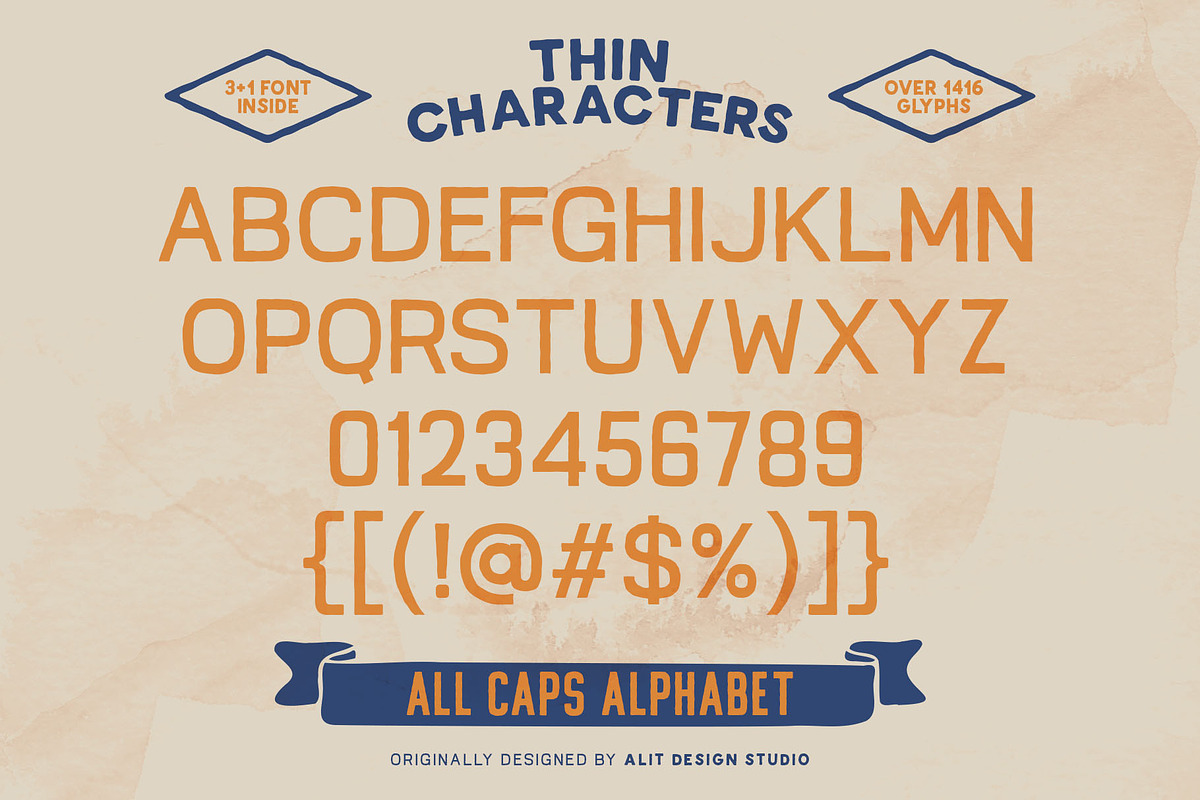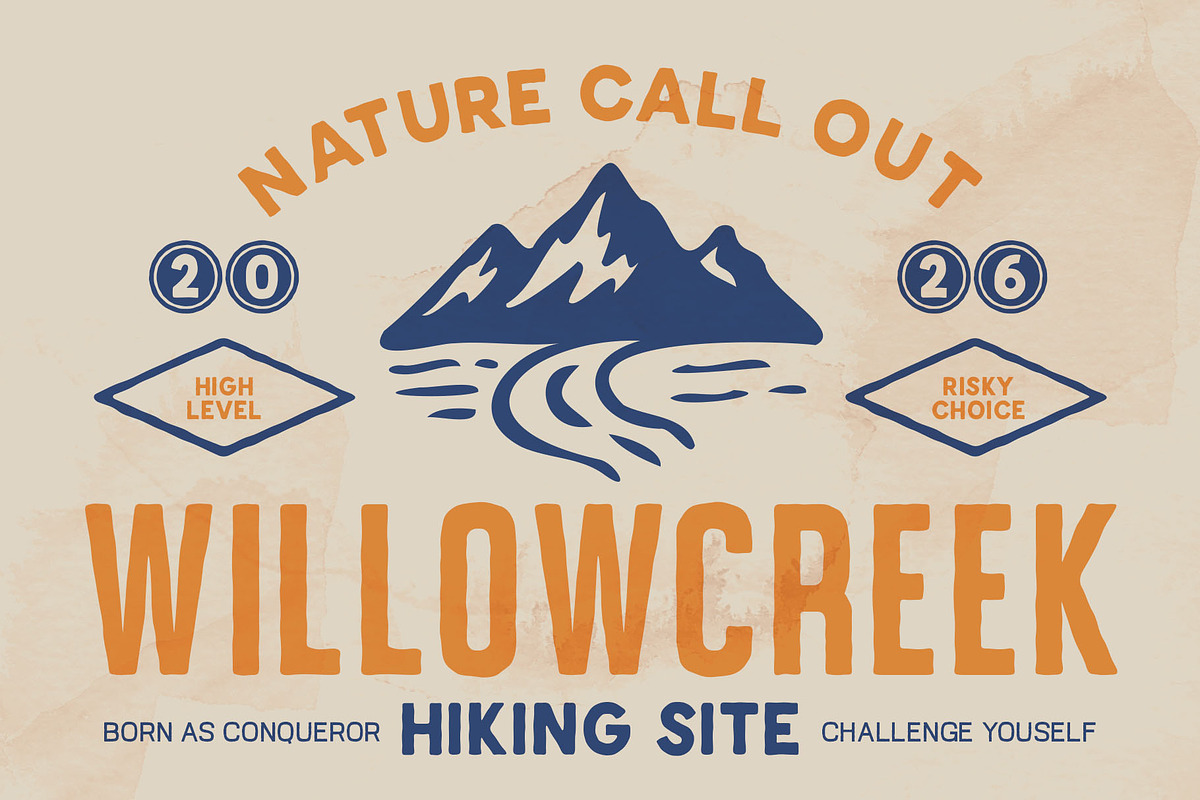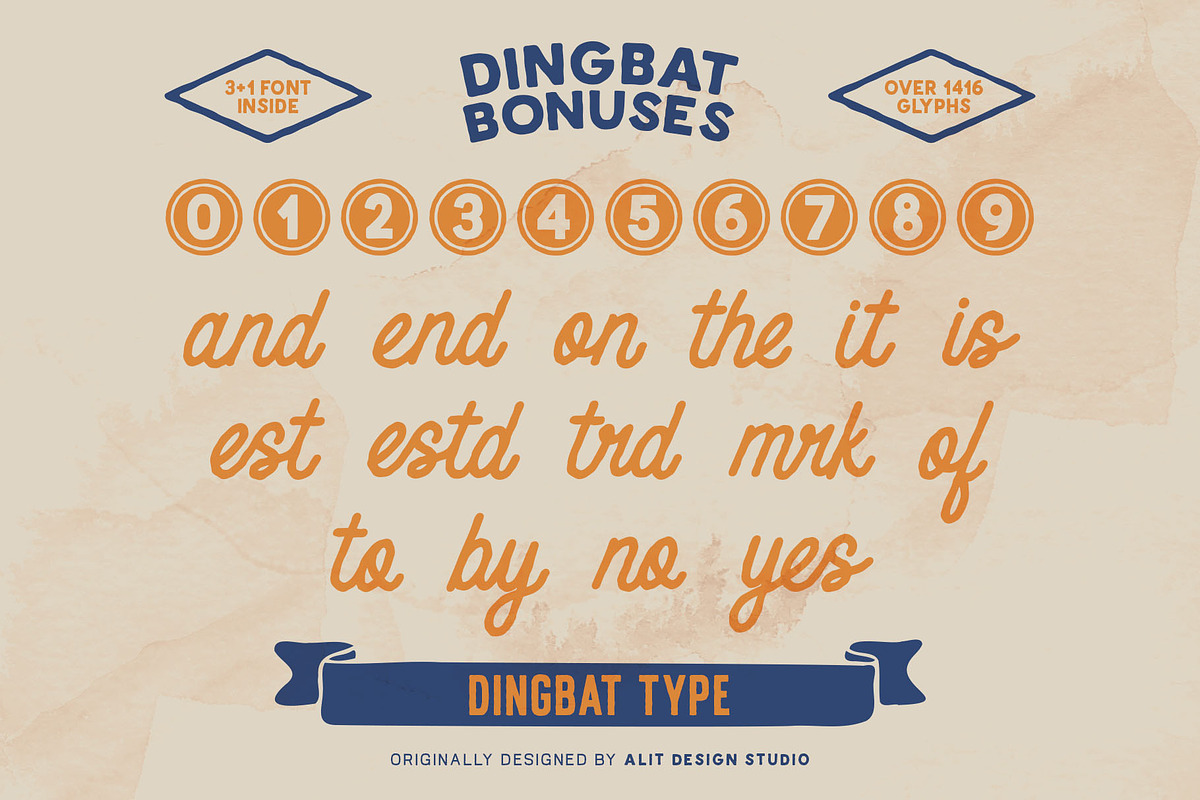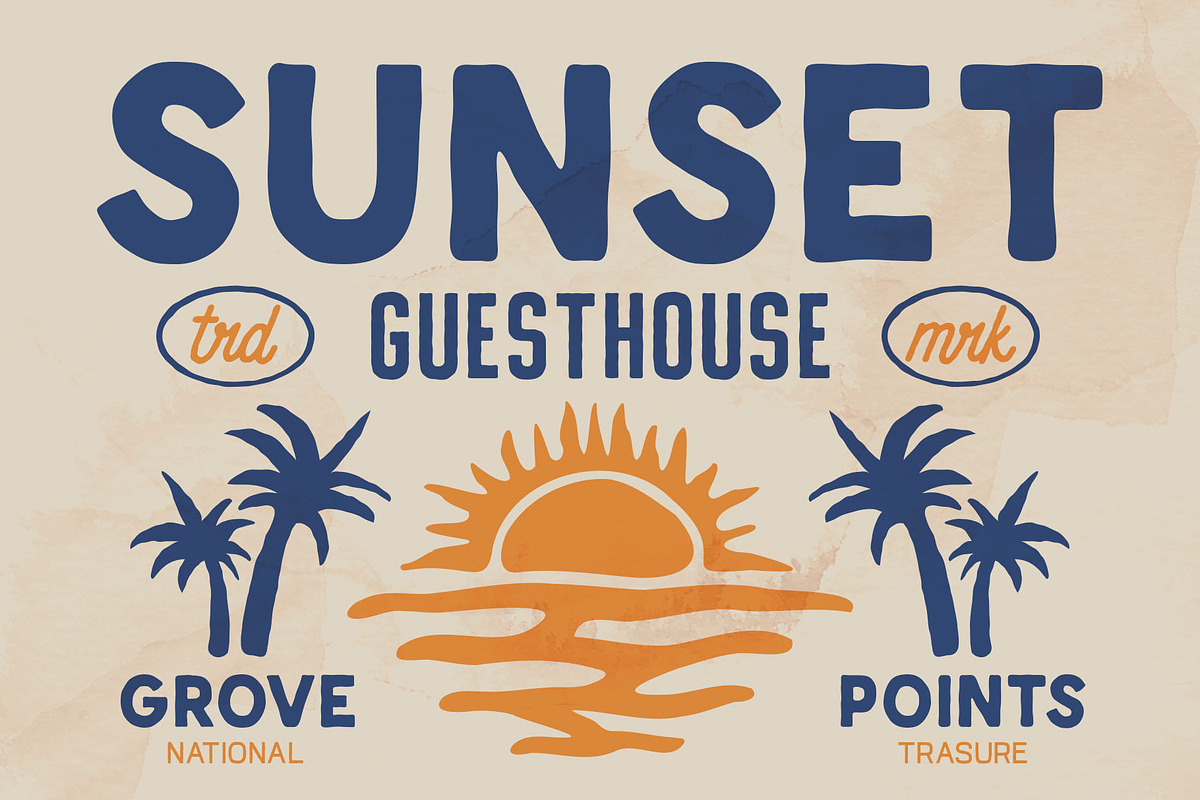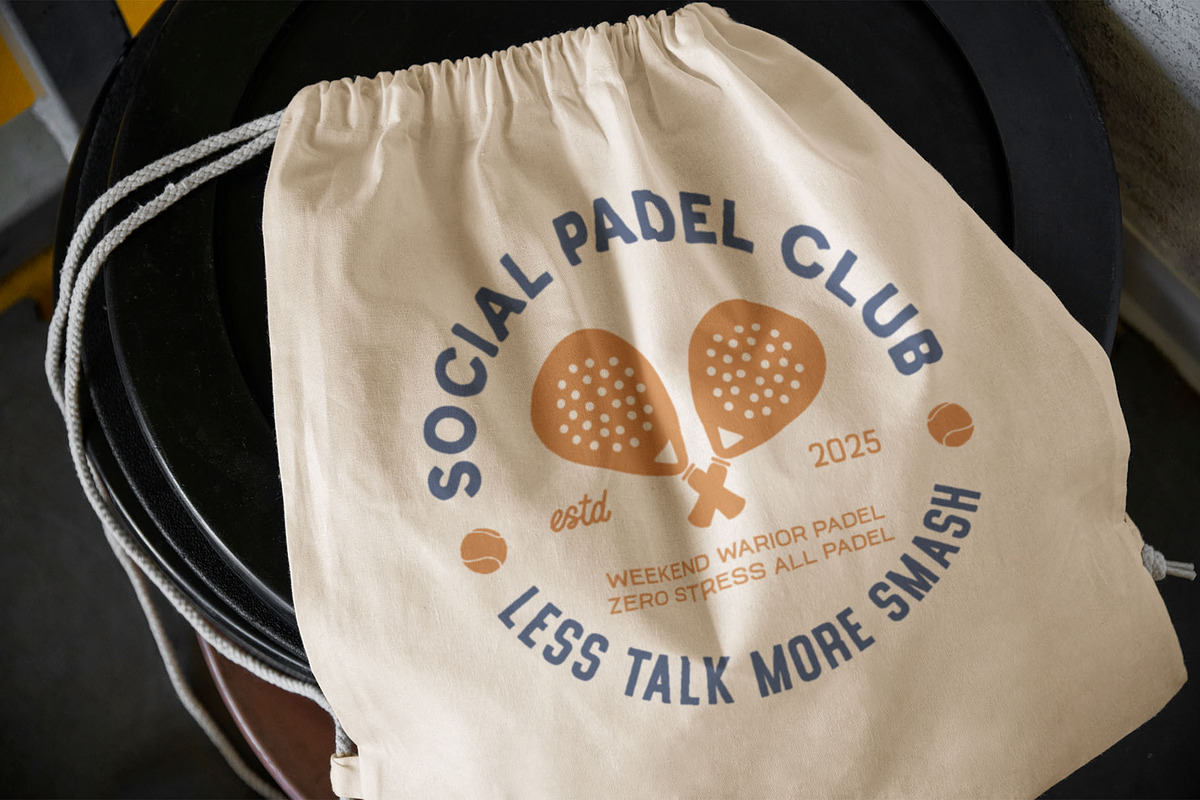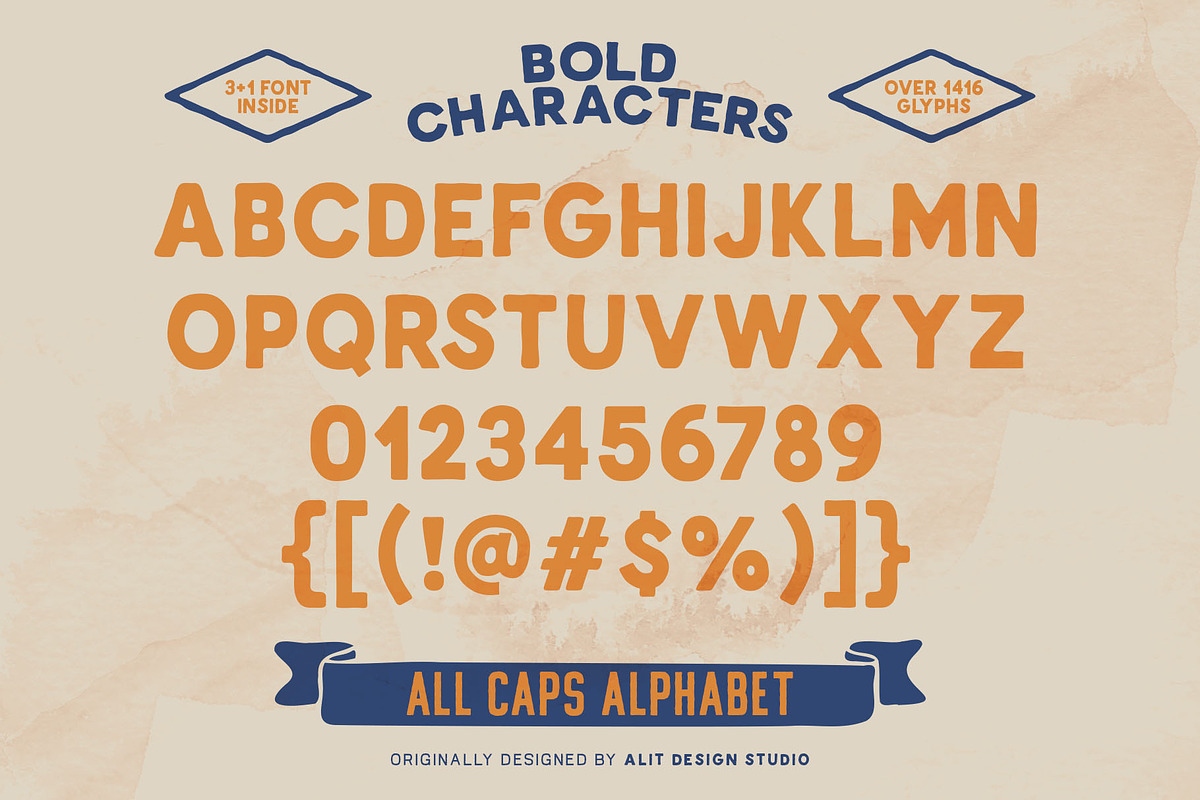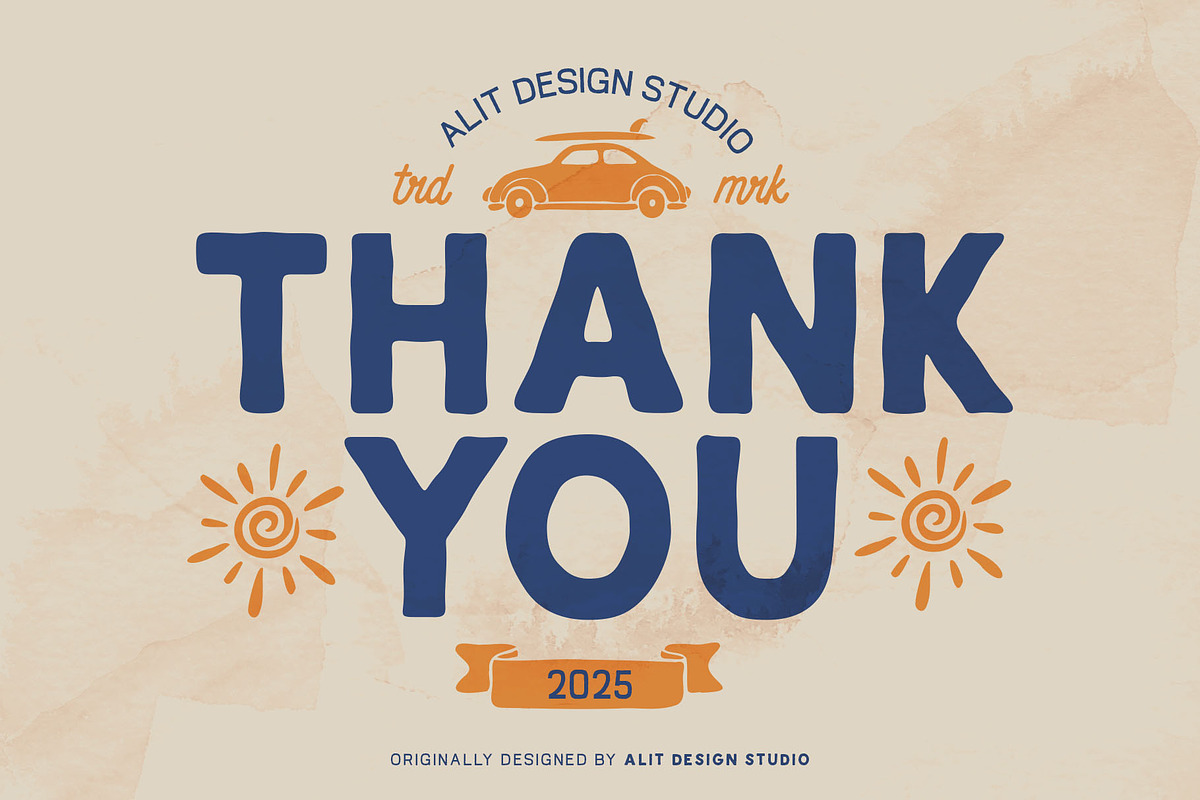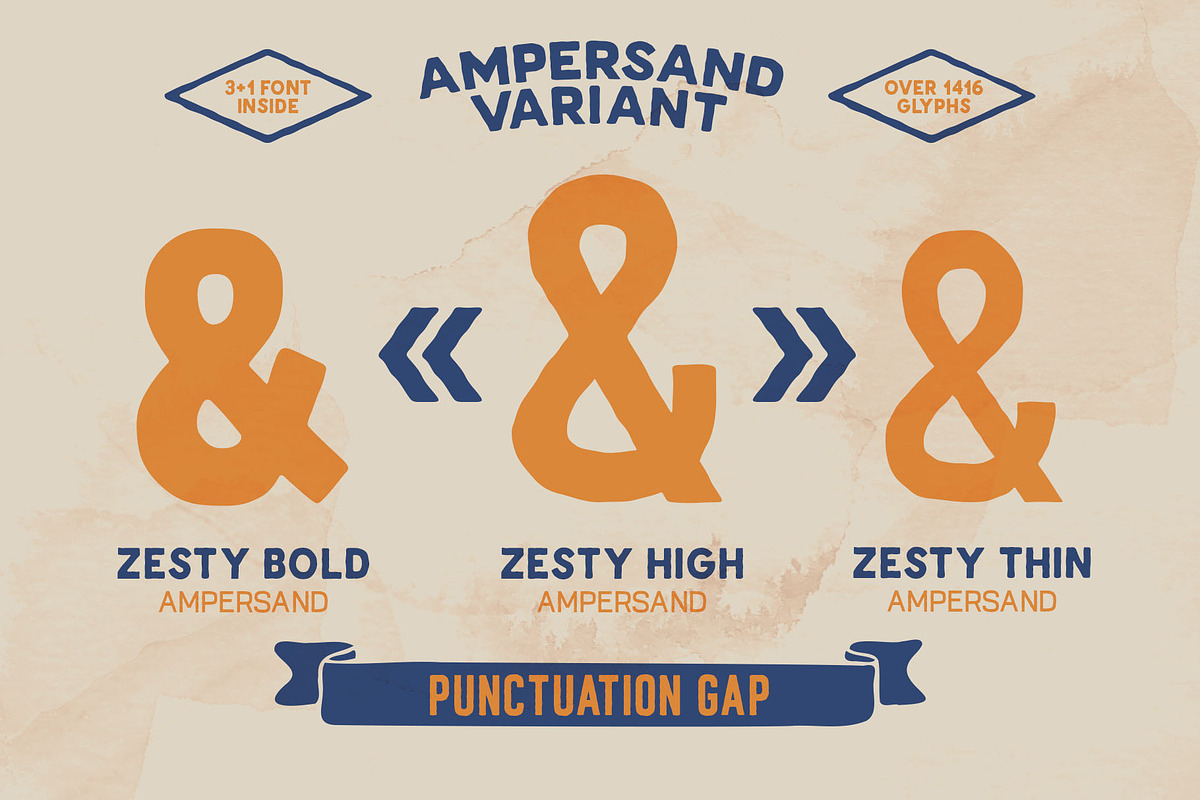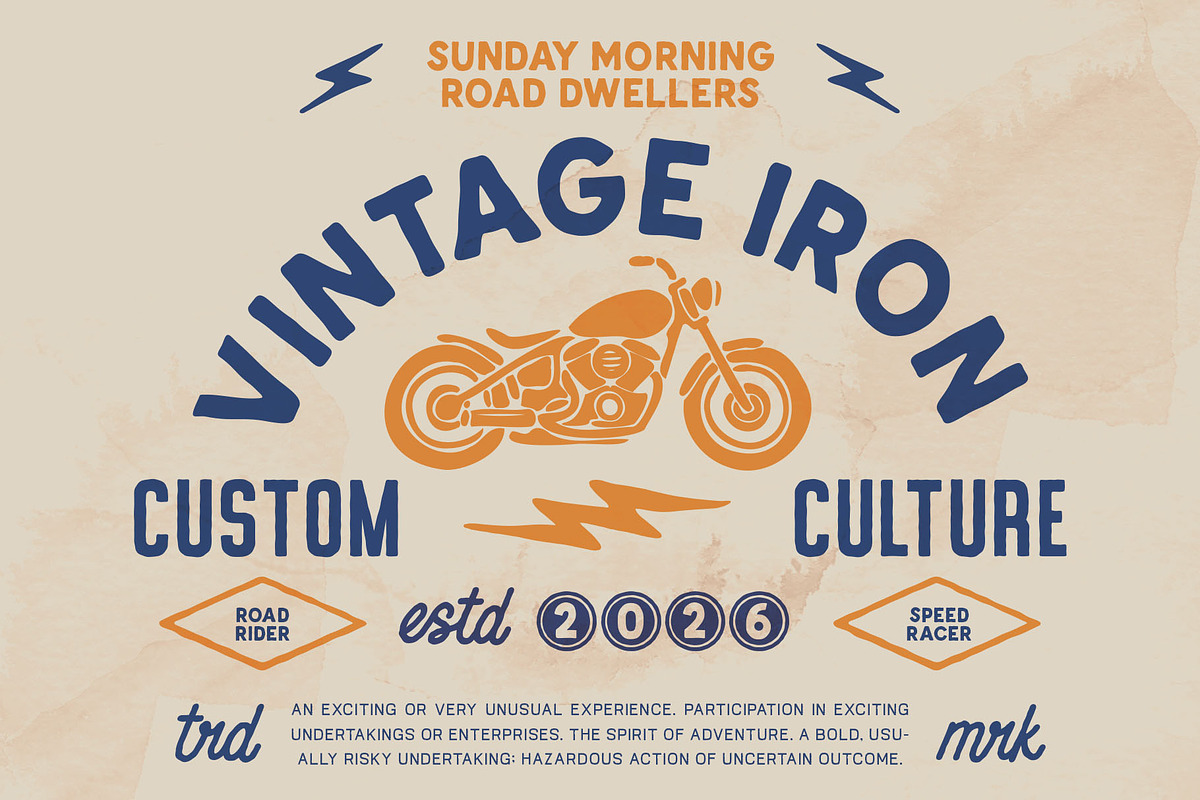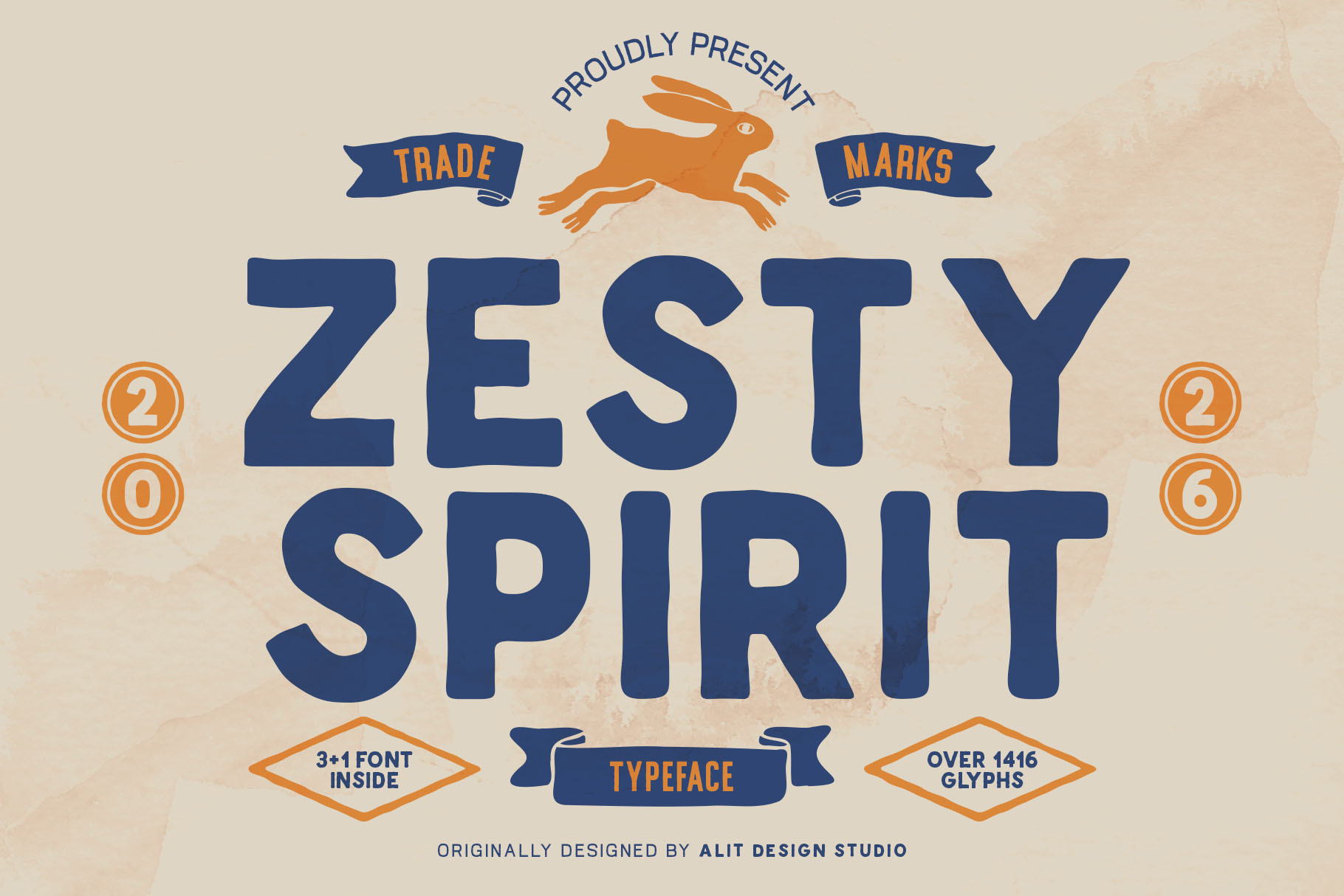
Zesty Spirit Typeface
Zesty Spirit – The Authentic Rough Stamp Typeface
Capture the Spirit of Adventure with Authentic Grit.
Introducing Zesty Spirit, a comprehensive font family designed to bring the timeless appeal of vintage rubber stamps and rough textures to your digital toolkit. Inspired by the great outdoors, retro branding, and the "seek and strike" mentality, this typeface is more than just letters—it’s a complete design system for creating logos, badges, and apparel with genuine character.
The Zesty Spirit family is defined by its imperfect, textured edges that mimic the pressure and ink bleed of traditional stamping. Whether you are designing for a surf brand, a coffee roastery, a camping gear startup, or a bold poster, Zesty Spirit delivers that "worn-in" look instantly.
What makes Zesty Spirit special?
It’s not just one font; it’s a toolbox. You get three distinct weights/styles (Bold, Thin, High) plus a massive collection of matching illustrations and catchwords. With over 1,416 glyphs, you have endless combinations to create unique wordmarks without needing extra software to distress your text.
- Vintage Logos & Badges: Use the "High" and "Bold" variants to create stacked typography logos.
- Apparel Design: Ideal for t-shirts, caps, and merchandise that needs a retro, screen-printed vibe.
- Packaging: Great for coffee bags, craft beer labels, or artisanal food products.
- Outdoor & Adventure Branding: The dingbats (fishing, camping, surfing) are specifically crafted for lifestyle brands.
1. The Font Family (3 Styles):
- Zesty Spirit Bold: Heavy, impactful, and perfect for main headlines.
- Zesty Spirit Thin: A lighter, refined version for subheaders or delicate vintage looks.
- Zesty Spirit High: A taller, condensed variation designed to fit perfectly into badge shapes and narrow spaces.
2. The Extras (Dingbats & Catchwords):
Zesty Spirit Dingbat Gram: A library of hand-drawn illustrations featuring outdoor themes (fishing rods, monster fish, camping tents, surfboards, motorcycles), animals (foxes, rabbits, birds), and vintage icons (skulls, palm trees, sunbursts).
Zesty Spirit Dingbat Type: A set of pre-designed catchwords (est, trd, mrk, of, the, etc.) and circled numbers to add that final professional touch to your layout.
Rough Stamp Texture: Every character features built-in texture for an authentic printed look.
Massive Glyph Count: Over 1,416 glyphs included.
All-Caps Design: Optimized for display and headline use.
Opentype Features: Includes unique "Ampersand Variants" and "Punctuation Gaps" for custom typography control.